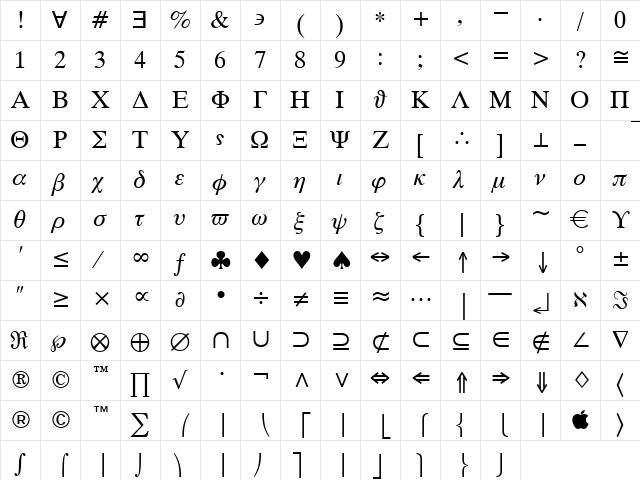
SymbolProp BT Regular
SymbolProp BT Family
Design Context for SymbolProp BT
SymbolProp BT is a composed and adaptable typeface that performs quietly and consistently across a wide range of design contexts.